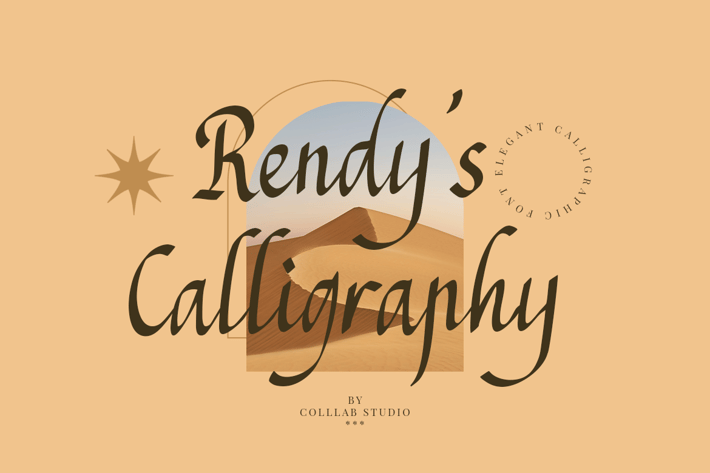
Rendy's Calligraphy - A Fashionable Font
Rendy's Calligraphy is A Fashionable Fonthat is suitable for design projects; fashion theme, logo, branding, poster, quotes, display, beautiful stationary art, eye-catching social media posts, and cute greeting cards, and any other designs.
Huge Alternates
Some underline swashes
Full uppercase and lowercase glyphs
Numbers, punctuations, and symbols